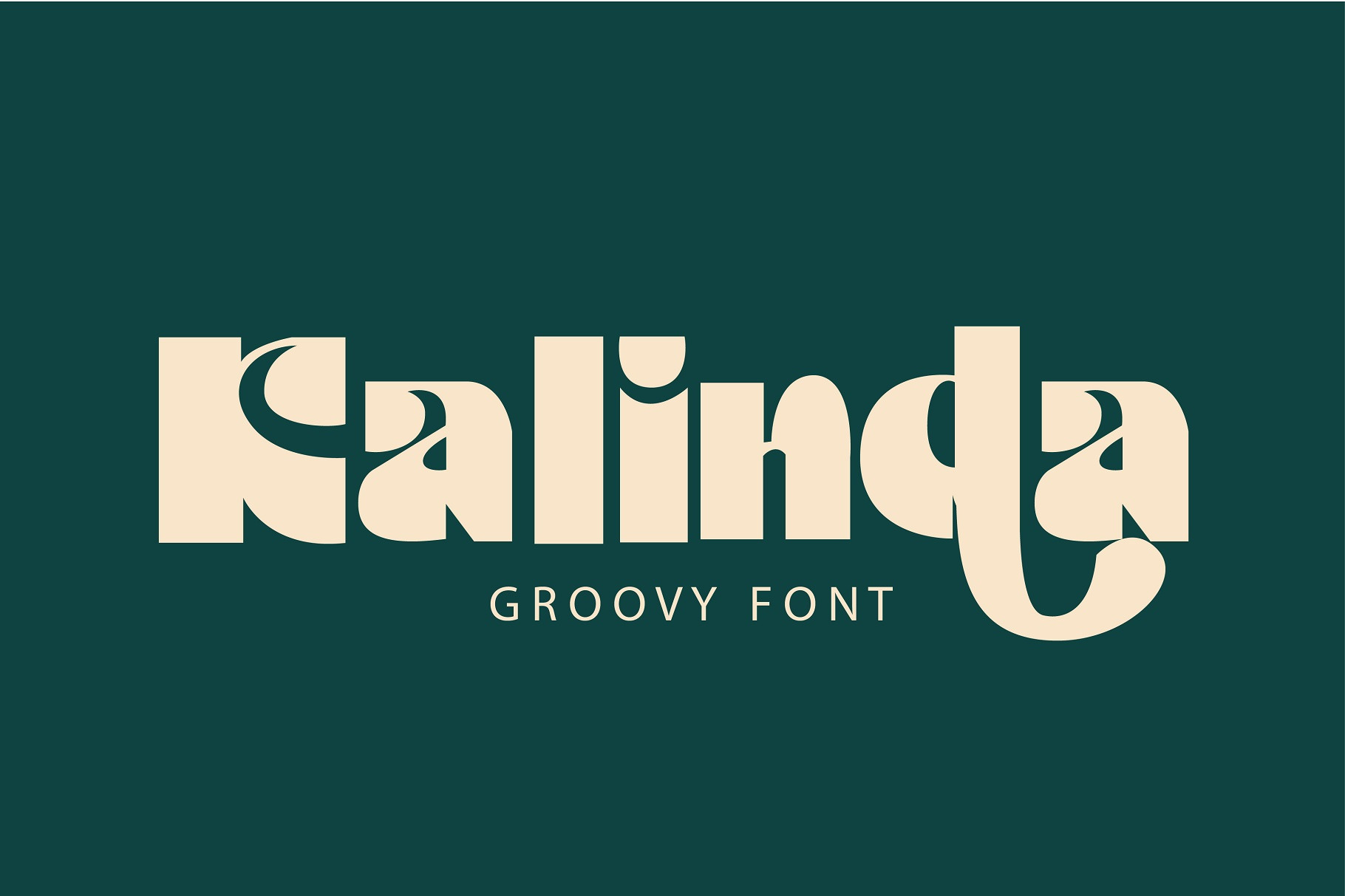
Kalinda Font
This modern typeface features . Perfect for gorgeous logos & titles, Kalinda Font will pair beautifully with many fonts and work well with whatever project you're working on.